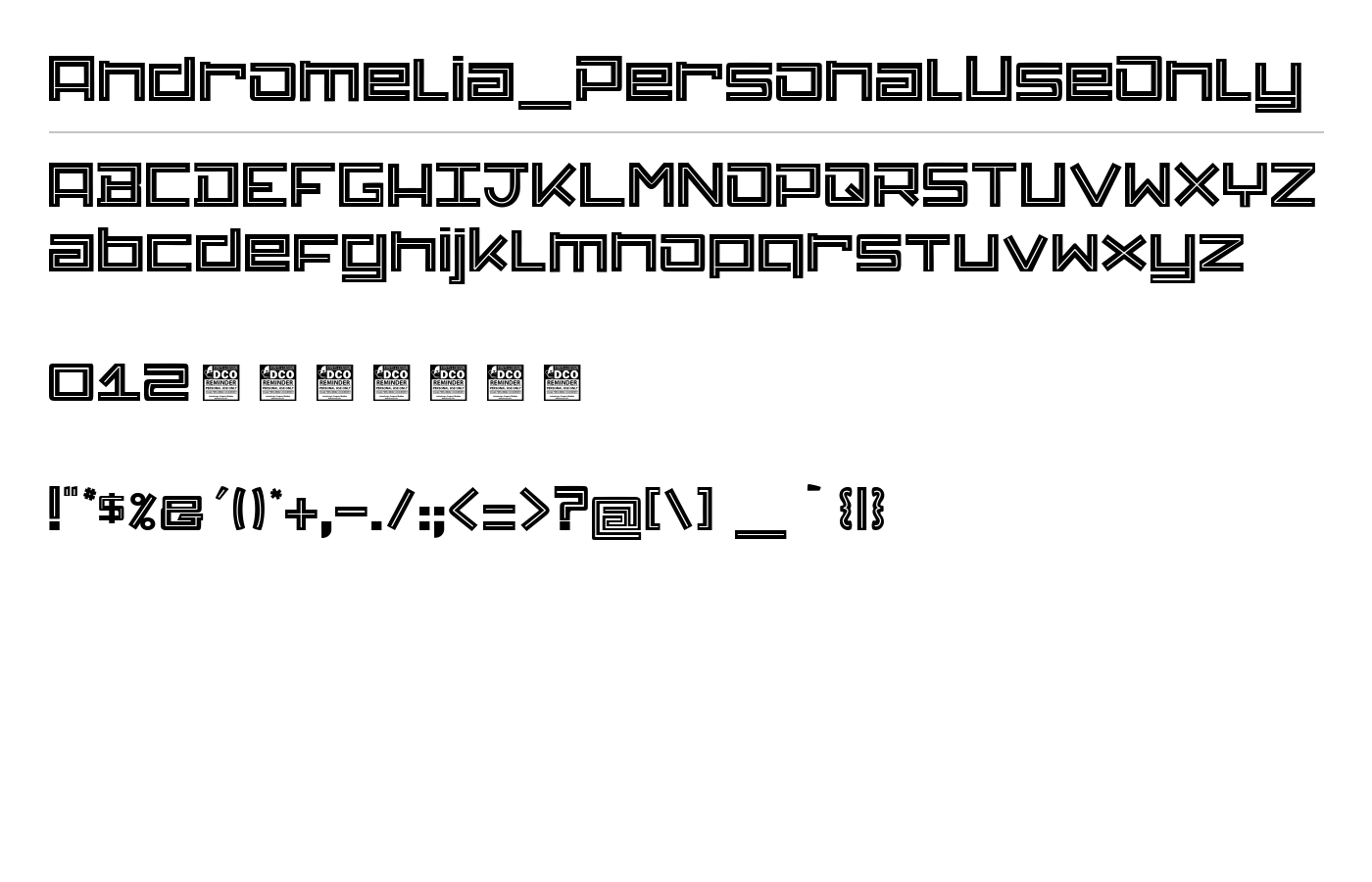
Andromelia_PersonalUseOnly is a modern, geometric sans serif font with a distinctively blocky and outlined design, giving it a futuristic and tech-inspired look. Its consistent stroke weight and precise angles make it stand out for digital and creative projects where a bold, innovative style is desired. This font works great for logos, posters, and headlines that aim to convey a cutting-edge, modern vibe.
Andromelia_PersonalUseOnly Font
About Andromelia_PersonalUseOnly Font